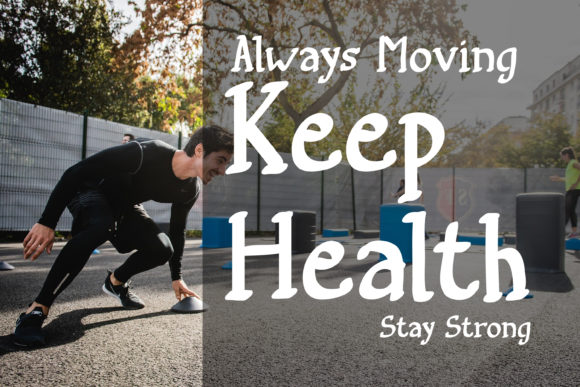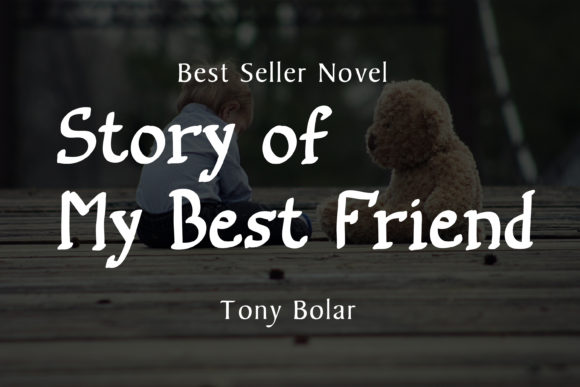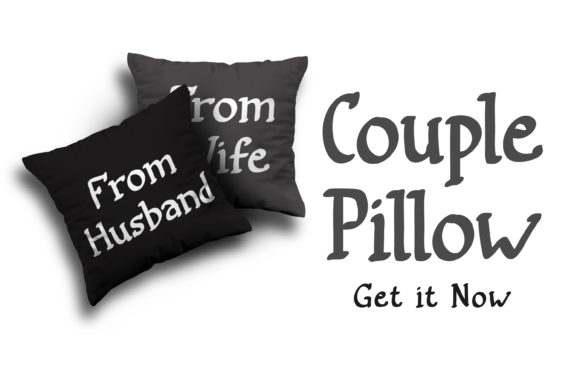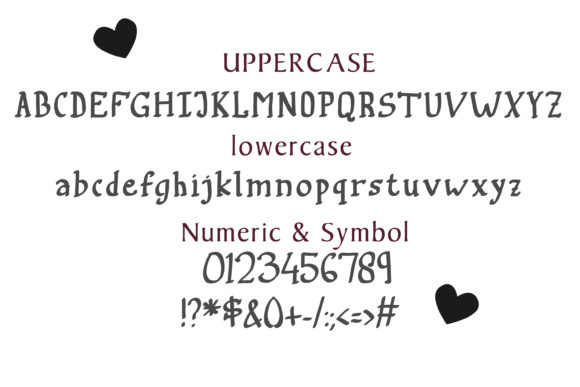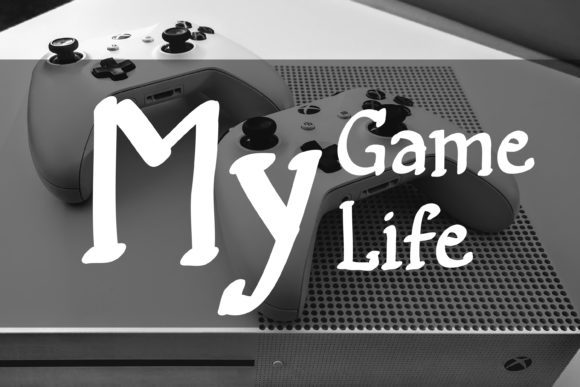
Erican Font: Elevate Your Designs with a Casual, Neat, and Stylish Serif Font
Are you a designer or crafter looking for a font that can add a touch of elegance and sophistication to your creations? Look no further than the Erican Font. This casual, neat, and stylish serif font is an incredibly versatile asset that can elevate any design, regardless of the topic or theme. In this article, we’ll take a closer look at the Erican Font, its features, and how it can benefit your design projects.
What is Erican Font?
Erican Font is a modern serif font that exudes a sense of casual elegance. Its neat and stylish design makes it perfect for a wide range of applications, from digital designs to print materials. The font features classic serif elements, such as small flourishes and rounded edges, which give it a friendly and approachable feel.
Key Features of Erican Font
So, what makes Erican Font so special? Here are some of its key features:
- Casual and elegant design: Erican Font has a relaxed, yet refined aesthetic that’s perfect for designs that require a touch of sophistication.
- Neat and readable: The font’s clean lines and classic serif elements make it highly readable, even at small sizes.
- Stylish and versatile: Erican Font can be used for a wide range of applications, from headings and titles to body text and captions.
- Supports multiple languages: The font supports a variety of languages, making it a great choice for global brands and designers.
Benefits of Using Erican Font
So, why should you choose Erican Font for your design projects? Here are some benefits:
- Elevate your designs: Erican Font can add a touch of elegance and sophistication to any design, making it perfect for high-end brands and luxury products.
- Improve readability: The font’s clean lines and classic serif elements make it highly readable, even at small sizes.
- Increase versatility: Erican Font can be used for a wide range of applications, from digital designs to print materials.
- Save time and effort: With Erican Font, you can create professional-looking designs quickly and easily, without having to spend hours searching for the perfect font.
How to Use Erican Font in Your Designs
Using Erican Font in your designs is easy. Here are some tips:
- Pair it with other fonts: Erican Font pairs well with a variety of other fonts, including sans-serif fonts and script fonts.
- Use it for headings and titles: Erican Font is perfect for headings and titles, where its elegant design can really shine.
- Experiment with different sizes and colors: Erican Font looks great at a variety of sizes and colors, so don’t be afraid to experiment and find the perfect combination for your design.
In conclusion, Erican Font is a casual, neat, and stylish serif font that’s perfect for designers and crafters looking to elevate their designs. With its elegant design, high readability, and versatility, Erican Font is an incredibly valuable asset to any font library. Whether you’re working on a digital design or print material, Erican Font is sure to make your creations stand out. So why not give it a try and see the difference it can make?